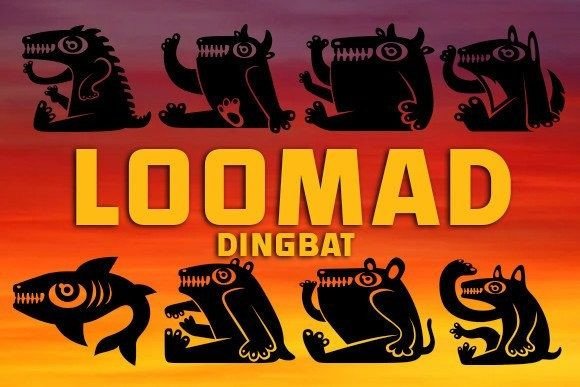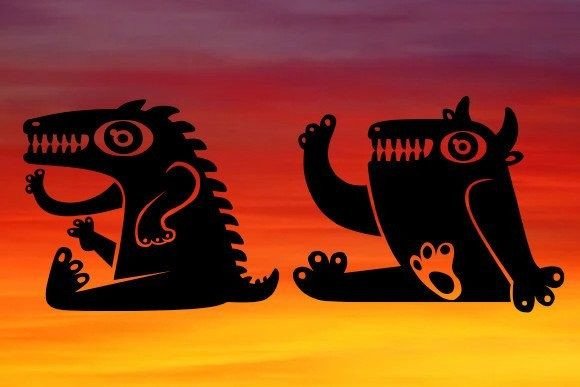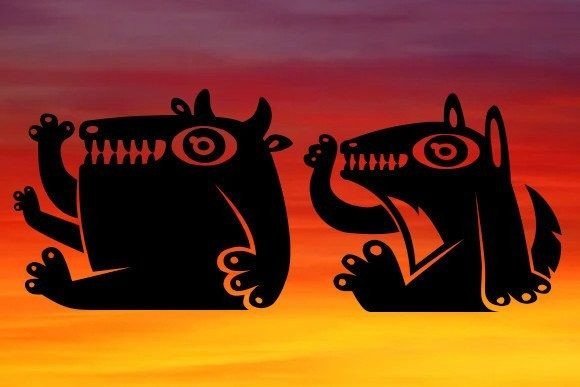
“Loomad” is a delightful and charming dingbat font that offers a collection of adorable cartoon creature illustrations. These whimsical and playful characters can add a touch of fun and personality to your design projects.
With “Loomad,” you have a variety of cute and lovable animal illustrations at your disposal. From cuddly cats and dogs to quirky birds and sea creatures, this dingbat font provides a diverse range of cartoon creatures that can instantly bring joy and lightheartedness to your designs.
Whether you’re creating flyers, banners, posters, or any other visual materials, the “Loomad” dingbat font can inject a sense of liveliness and creativity into your compositions. The charming and expressive nature of the cartoon creatures can capture attention and evoke positive emotions.
The versatility of “Loomad” allows you to incorporate the illustrations in various ways. You can use them as decorative elements, create cute patterns, or even build entire scenes and narratives using the characters. The possibilities are endless, and the only limit is your imagination.
By utilizing the “Loomad” dingbat font, you can create eye-catching and memorable designs that appeal to both children and adults. Whether you’re designing for personal or commercial purposes, this font can bring a sense of playfulness and whimsy to your work.